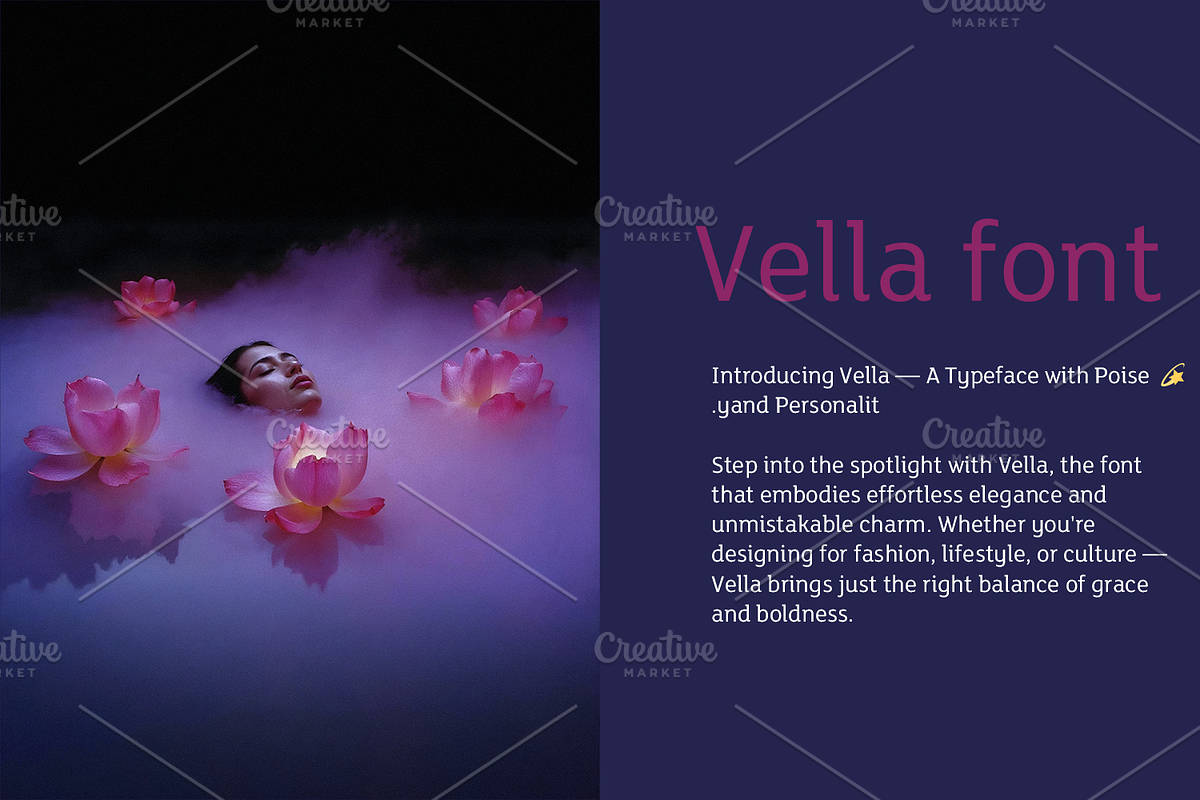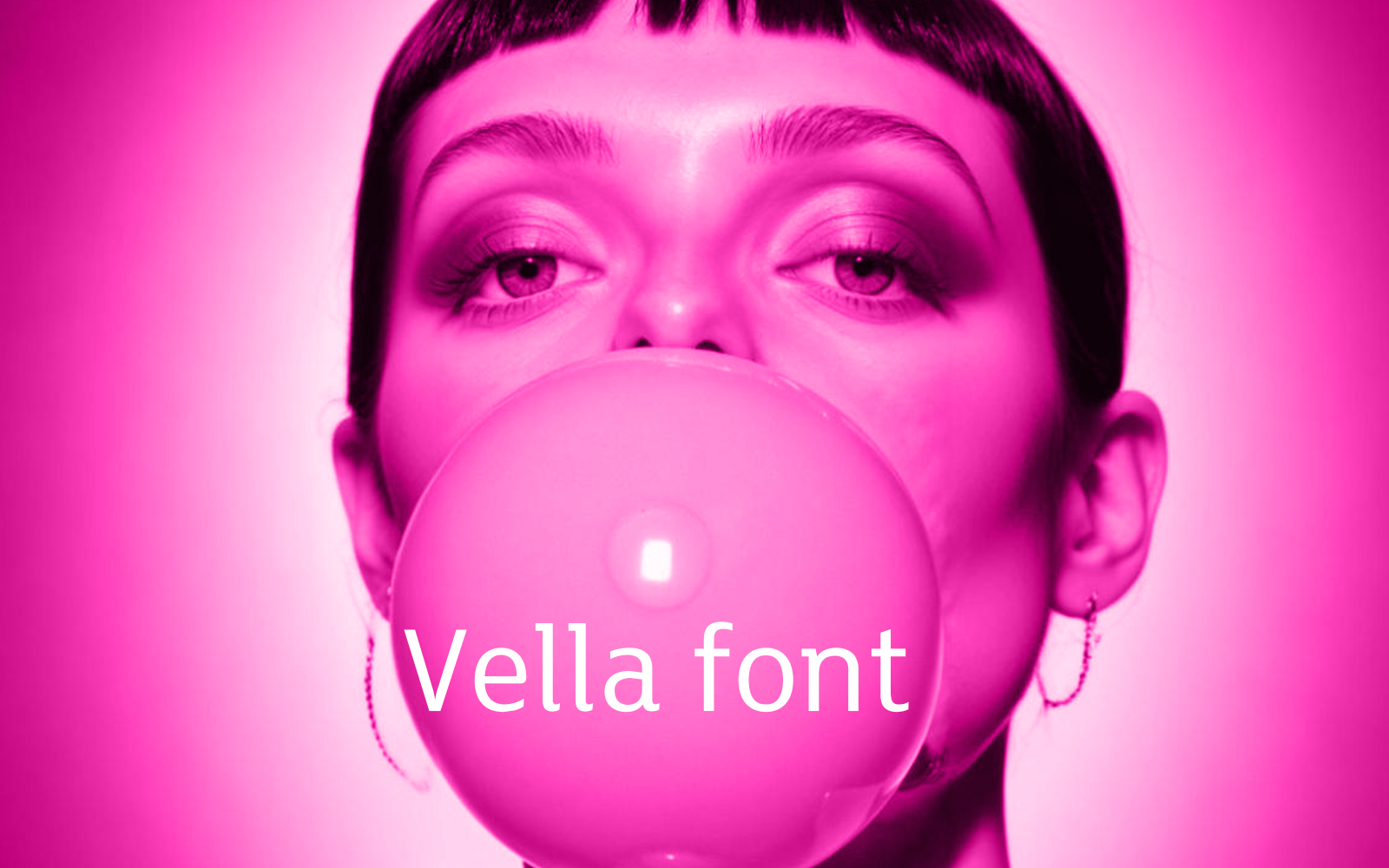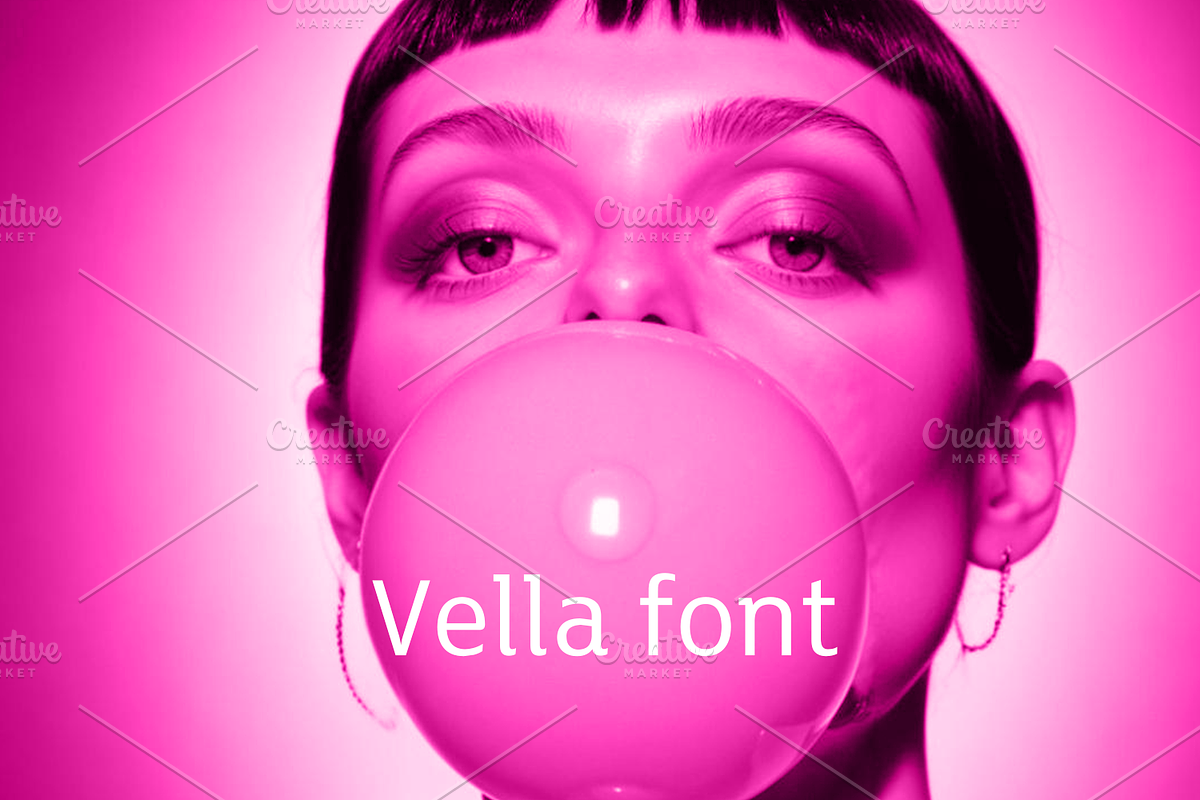
Vella font-Regular-0110-25
💫 Introducing Vella — A Typeface with Poise and Personality.
Step into the spotlight with Vella, the font that embodies effortless elegance and unmistakable charm. Whether you're designing for fashion, lifestyle, or culture — Vella brings just the right balance of grace and boldness.
✨ Smooth curves with unexpected flair
🖋️ Ideal for editorials, branding & packaging
💄 Sophisticated but never dull
From bold magazine spreads to beauty campaigns, Vella is your new go-to for stylish expression.
👠 Vella — Typography with a wink and a walk.